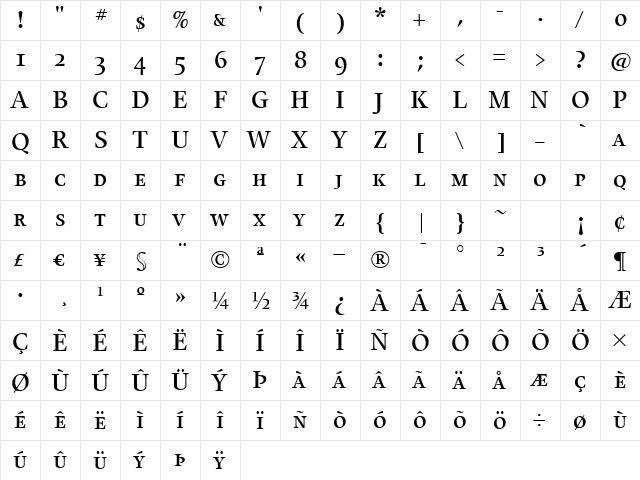
UnionMediumSmallCaps Regular
Design Context for UnionMediumSmallCaps Typeface
UnionMediumSmallCaps is a composed and adaptable typeface that performs quietly and consistently across a wide range of design contexts.